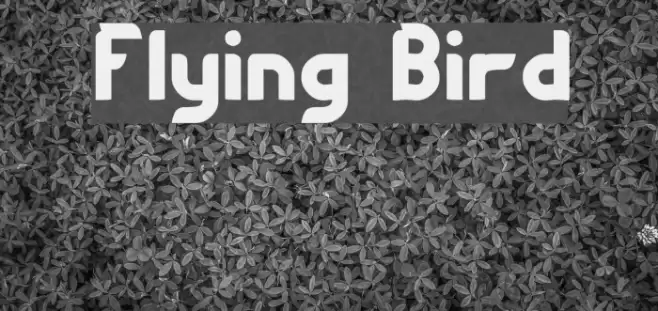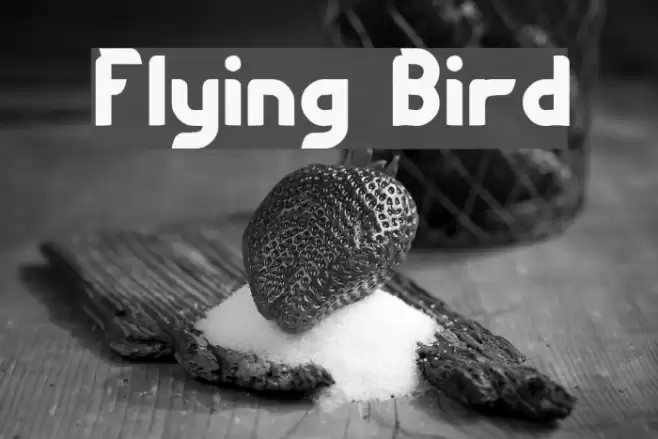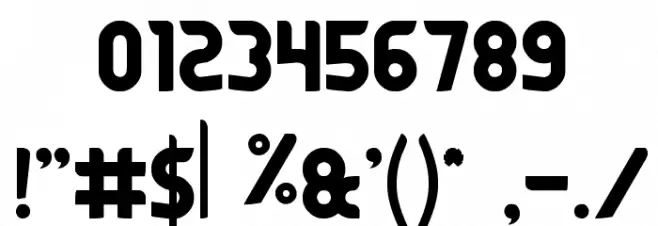
Flying Bird Font
Flying Bird Description
This font features a bold and dynamic style with a unique geometric design. The characters have a strong presence with their thick strokes and angular forms, creating a sense of movement and energy. The uppercase letters are particularly striking, with a modern and futuristic aesthetic. The lowercase letters maintain the same boldness, ensuring consistency across the typeface. Numbers and special characters are designed to match the overall style, making this font versatile for various applications. Its distinct appearance makes it suitable for projects that require a standout typeface.
A bold, geometric font with a modern and dynamic style from Uncategorized fonts.